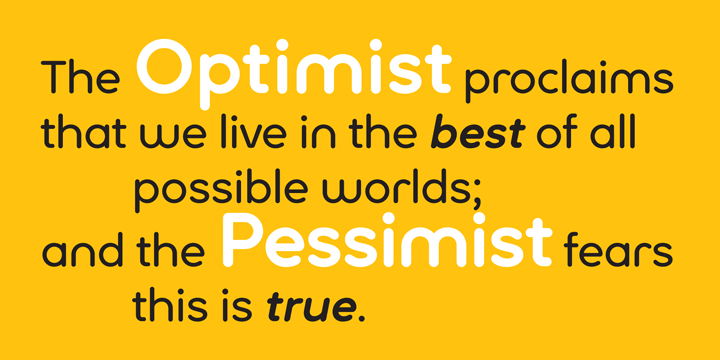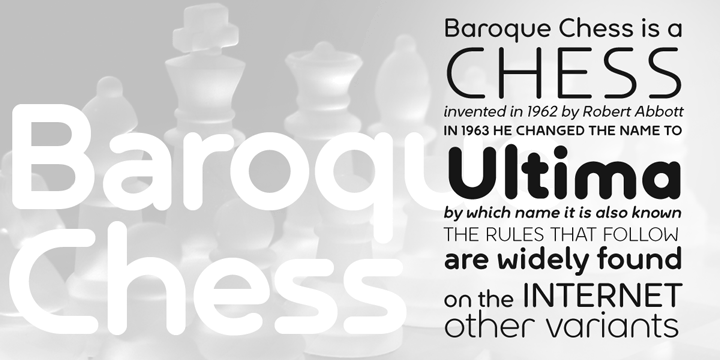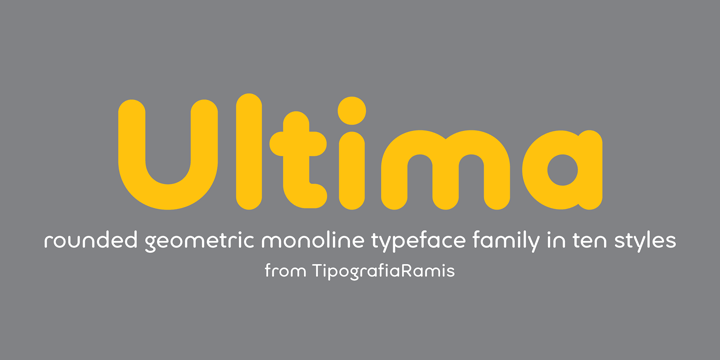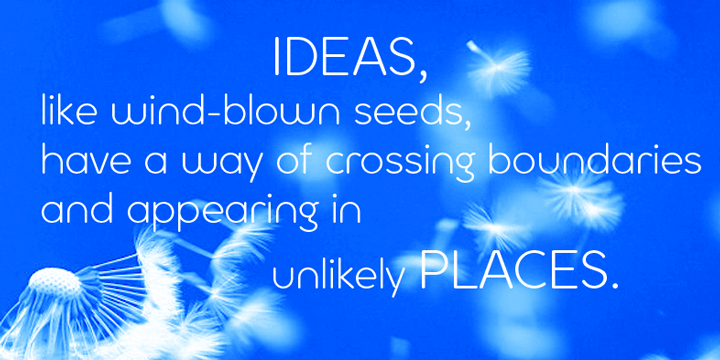
Ultima is a sans serif font family. This typeface has ten styles and was published by TipografiaRamis.
Ultima is a rounded geometric monoline typeface family, built in ten styles. The typeface is ideal for use in display sizes, though is quite legible in text.